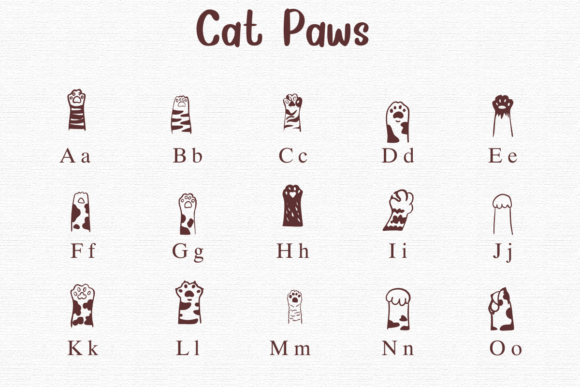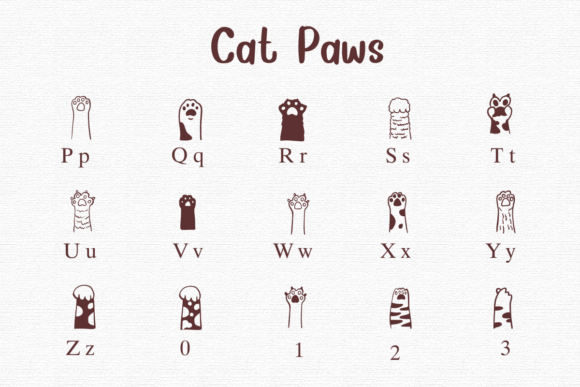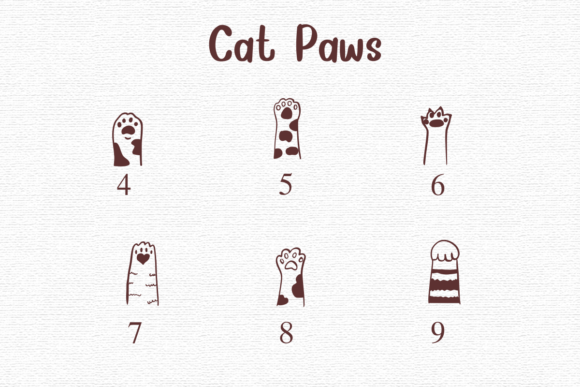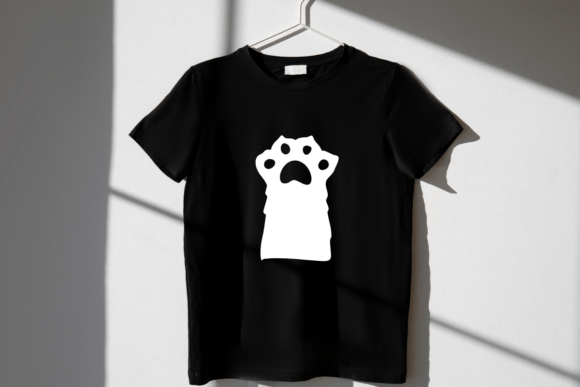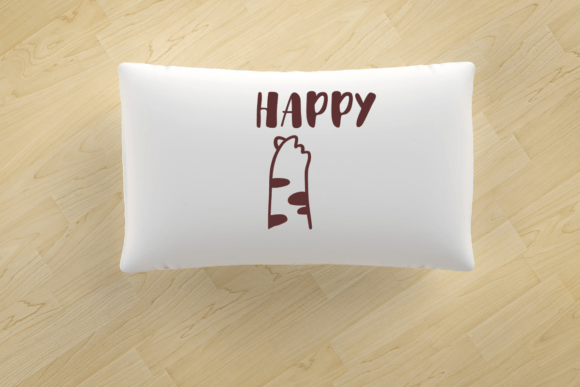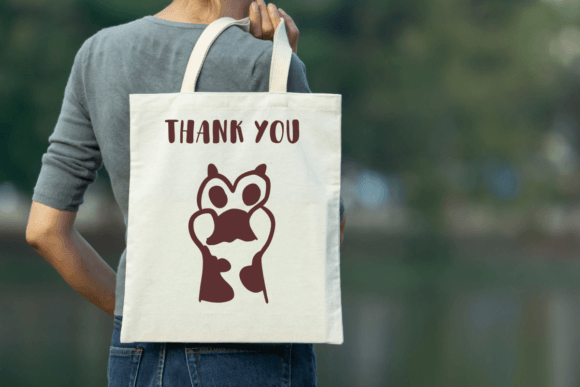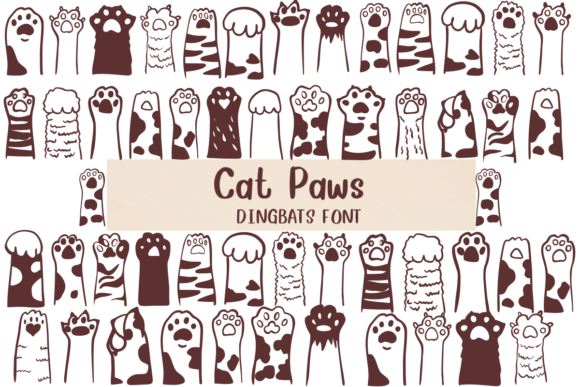
The Purrfect Font: A Deep Dive into Cat Paws Font
I’ll never forget the time I was working on a whimsical cat-themed project for a client, and I just couldn’t find the right font to match the playful vibe. The client wanted something that would make their audience go “awww,” and I was determined to deliver. That’s when I stumbled upon the Cat Paws Font, and it was love at first sight! 🐱
This charming font features adorable cat paw prints instead of letters, and it’s been a game-changer for my design projects. In this article, I’ll share my honest review, a step-by-step guide on how to use it, and some valuable insights into this delightful font.
• ✨ Unique and playful design that’s sure to grab attention
• ✅ Easy to use and pairs well with a variety of fonts
• 🎉 Perfect for cat-themed projects, but also versatile enough for other creative endeavors
• 💕 High-quality, crisp designs that look great in various sizes
• 🤔 Limited character set, which may require some creative workarounds
• ⚠️ Not suitable for body text or long-form content due to its decorative nature
The Cat Paws Font was created by a talented designer who’s a self-proclaimed cat lover. Inspired by their own feline friends, they wanted to create a font that would capture the playful, affectionate spirit of cats. The result is a delightful font that’s sure to bring a smile to anyone’s face.
Font Name Cat Paws Font
Author Nongyao
Is Cat Paws Font suitable for body text? No, Cat Paws Font is a decorative font best suited for headlines, titles, and short-form content.